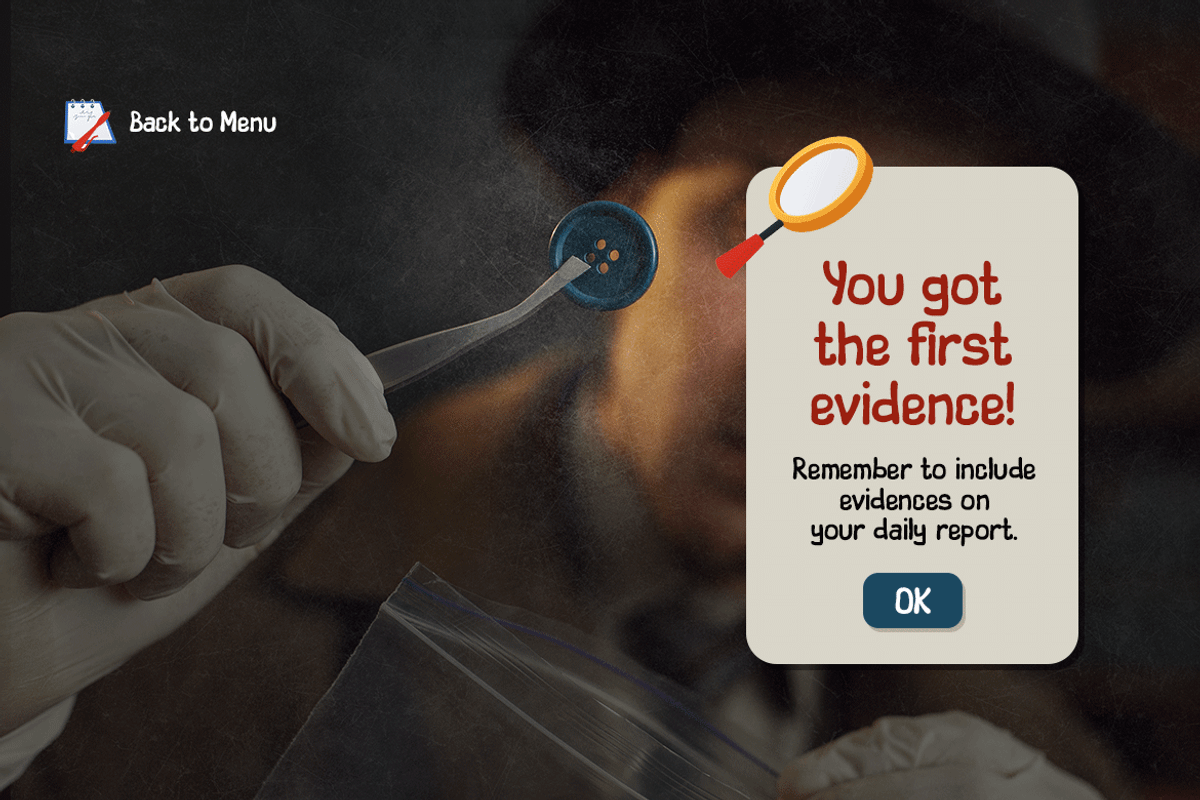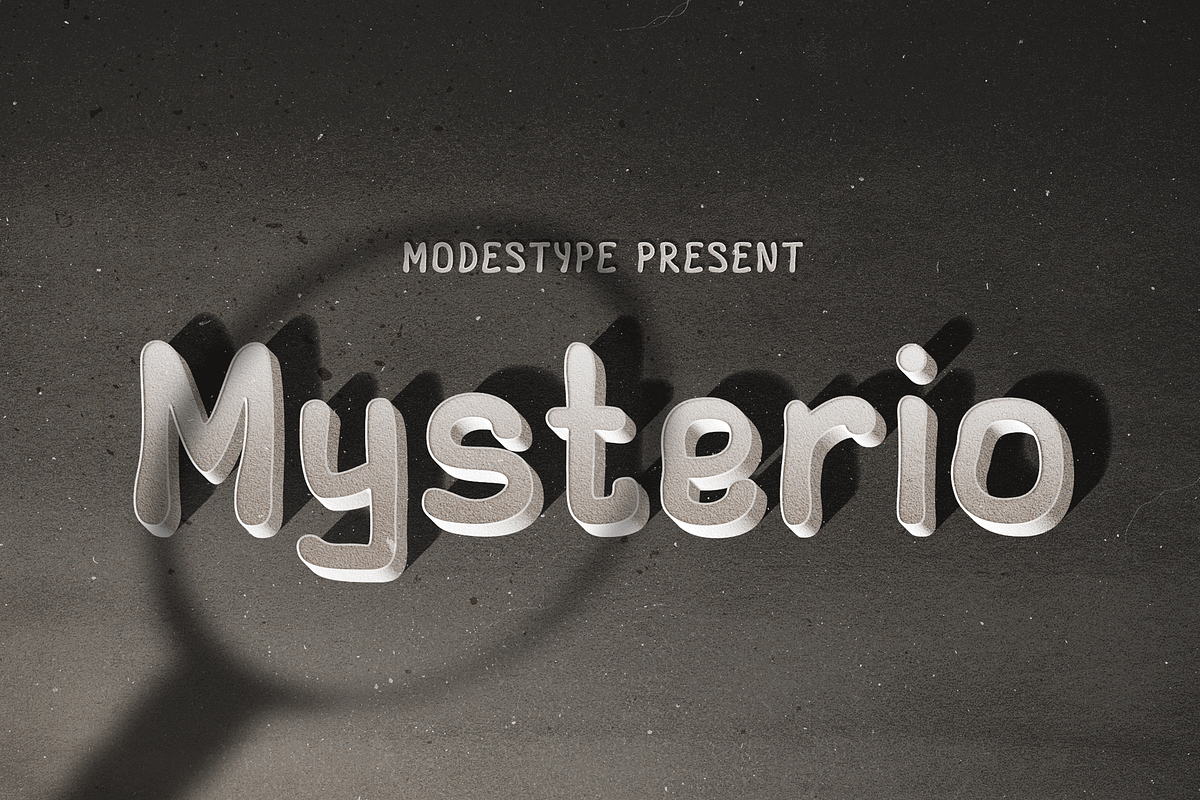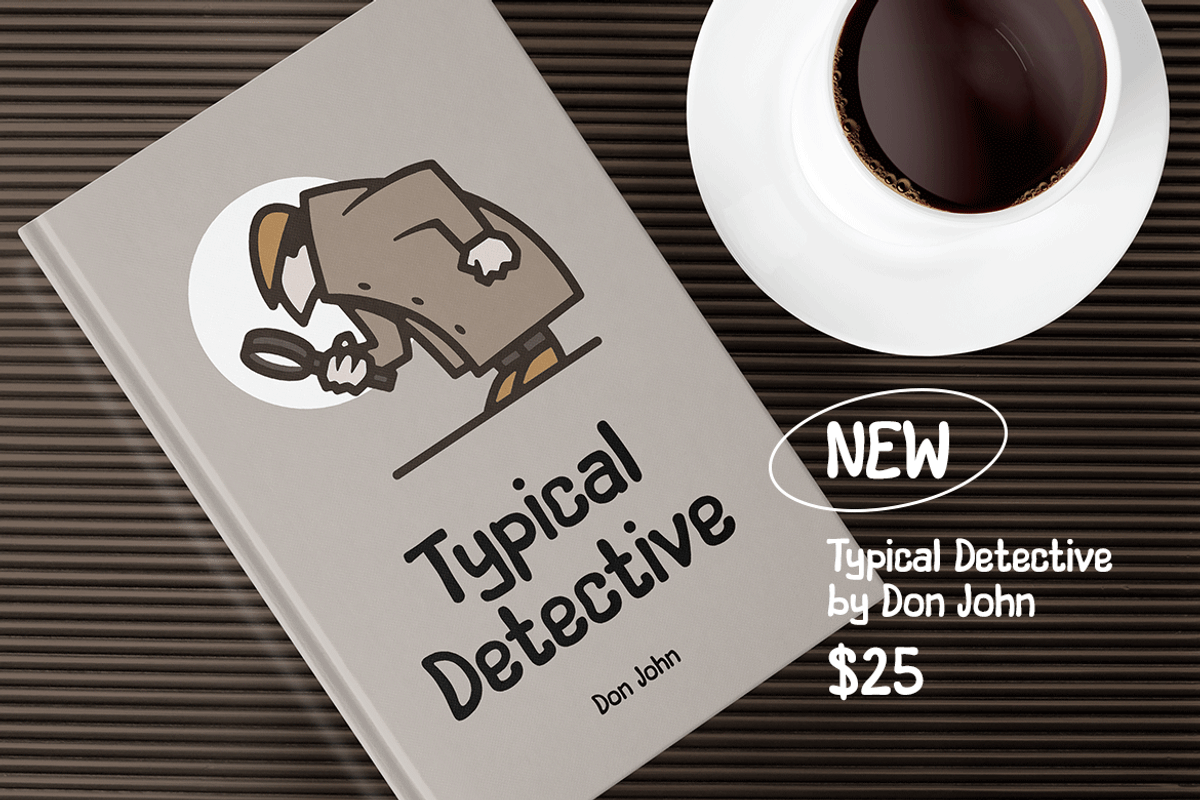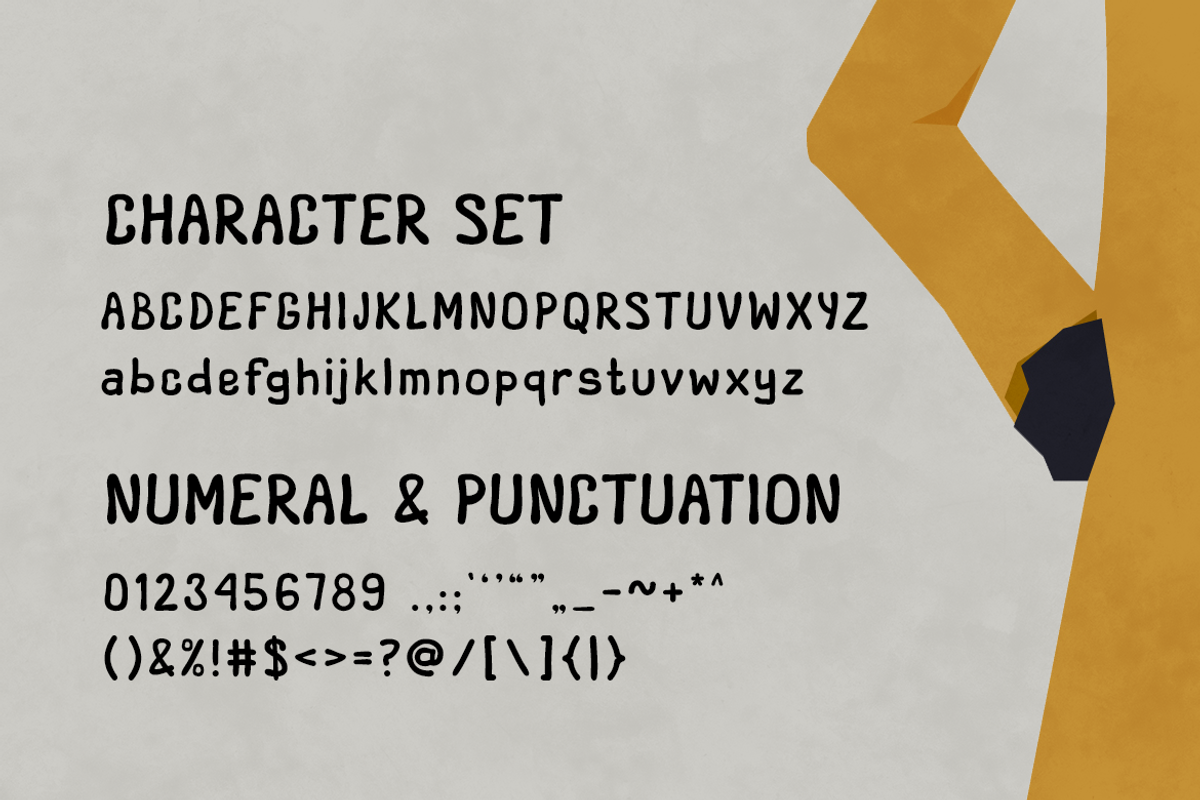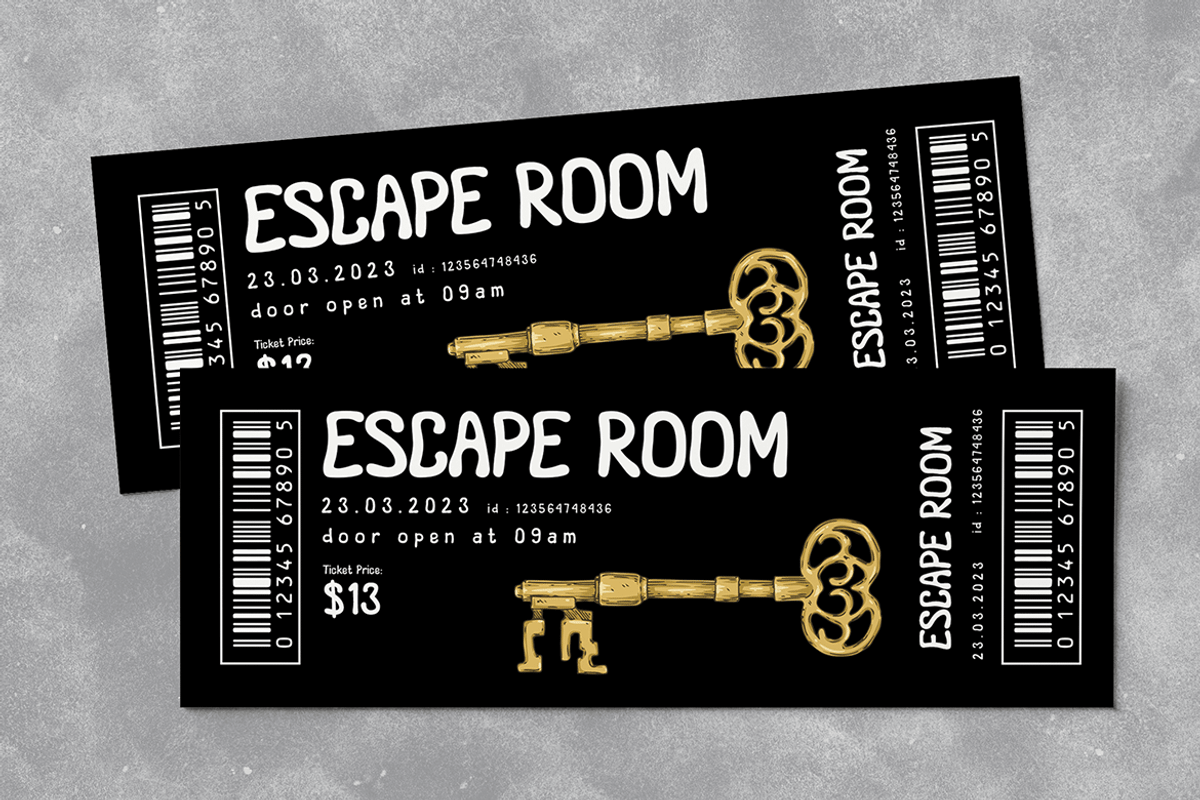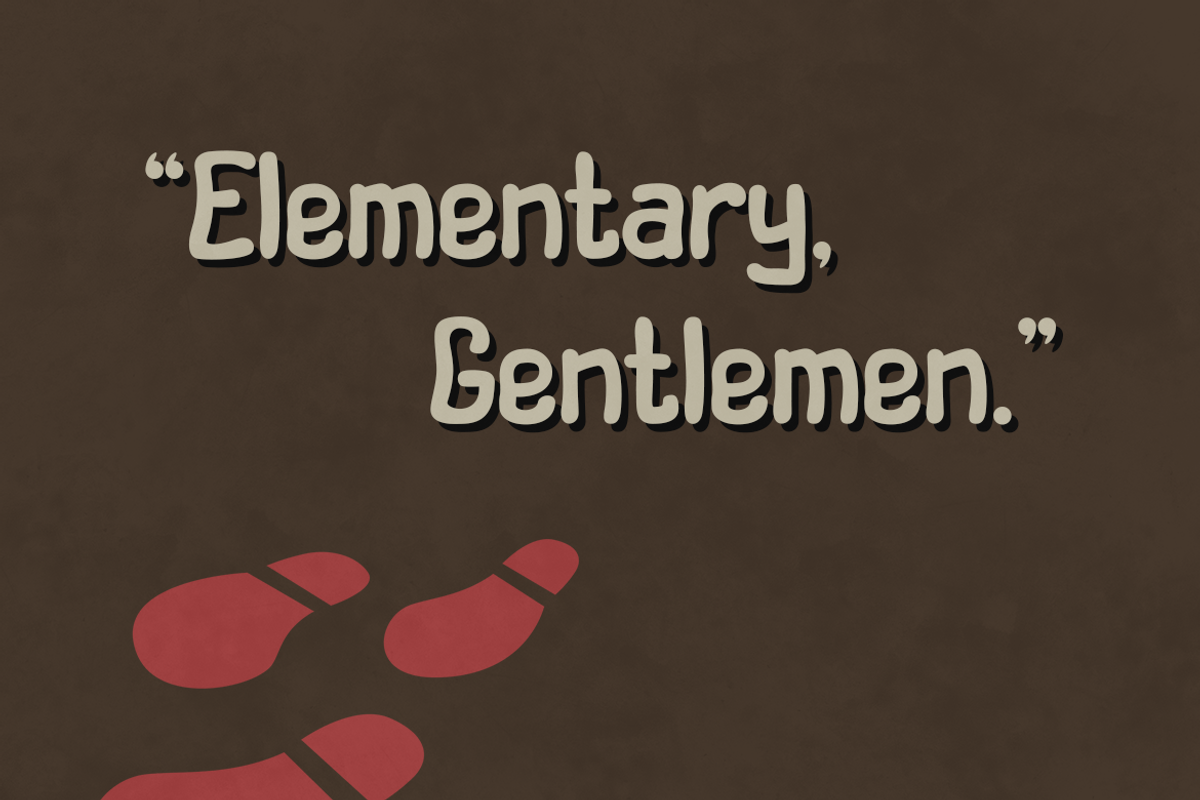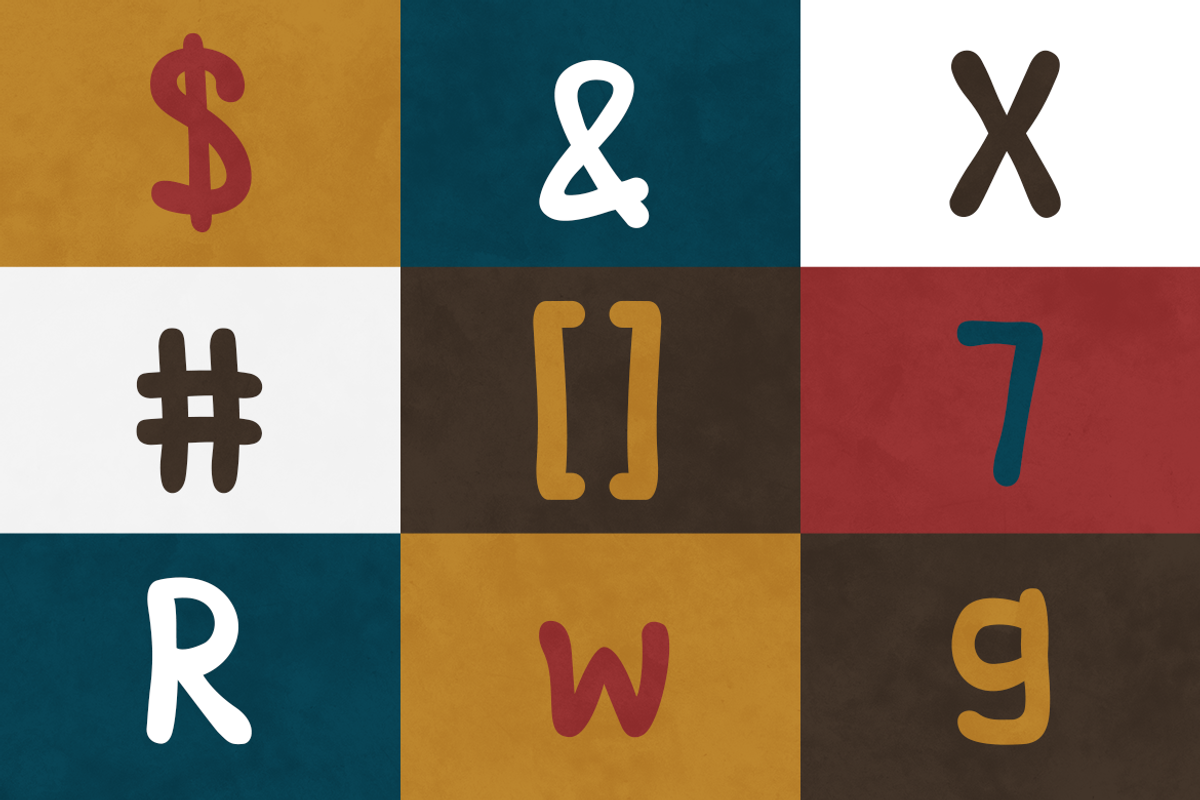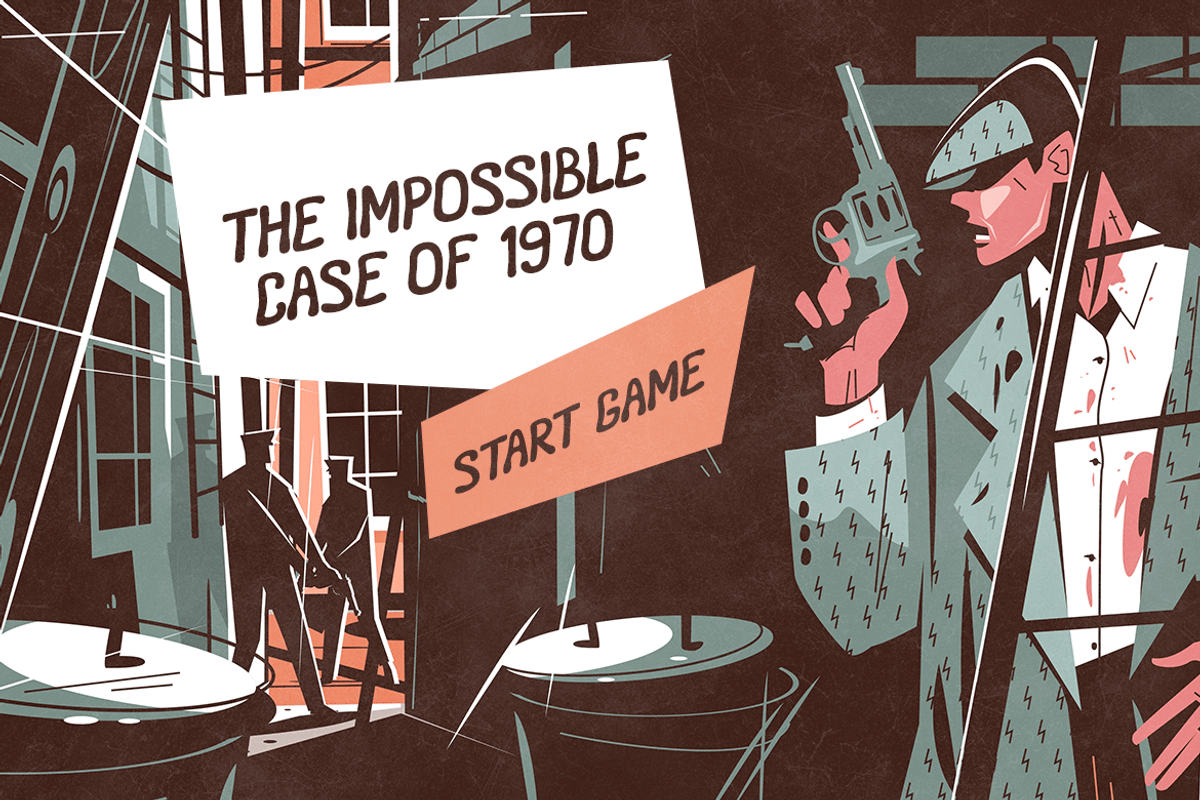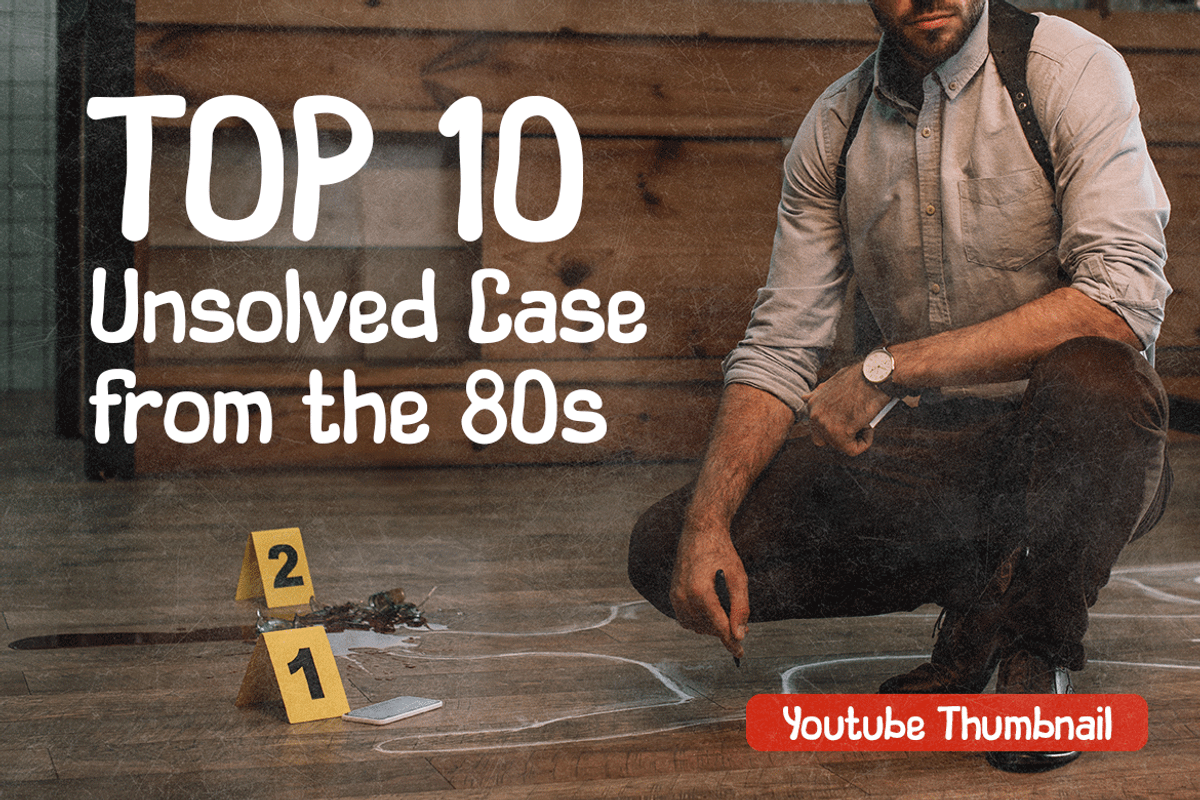
Mysterio - Crime Solving Comic Font
Mysterio - Comic Font
The vibes gives you chill and shiver, but also bring a lot of curiousness on every story written.
Suit perfect for detectives/ mystery children's books market, online games, event posters, school supplies font, posters, movie titles, youtube covers, youtube thumbnails, social media page covers, and so on...